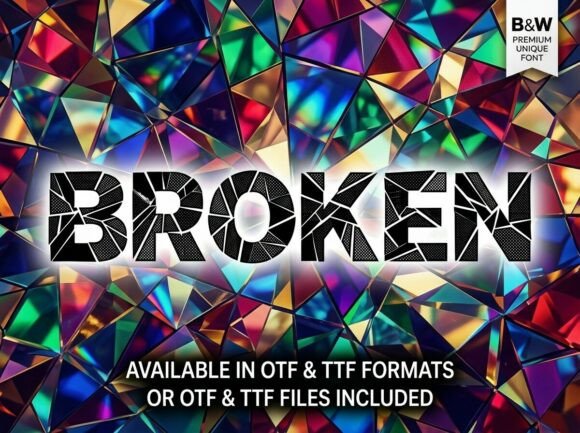
The Shattered Edge of Typography: Unleashing the Power of Broken Font
I’ll never forget the design project that pushed me to the edge – literally. I was working on a bold, avant-garde poster for an alternative rock band, and I needed a font that would shatter the boundaries of traditional typography. That’s when I stumbled upon Broken, a premium display font that would change the game. In this article, I’ll share my journey with Broken, its incredible features, and how to harness its power on various design platforms.
A Design Moment of Truth
I was struggling to find the perfect font for my project, and my client was getting restless. They wanted something bold, edgy, and attention-grabbing. I scoured the internet, but nothing seemed quite right. That’s when I discovered Broken – a magnificent shard-based design that seemed to explode with energy. I was hooked, and my design woes were about to disappear.
An Honest Review of Broken Font
• 💥 Unparalleled visual impact: Broken’s intricate mosaic design creates a dramatic, multi-dimensional depth that’s hard to ignore.
• ✅ High-contrast aesthetic: The combination of solid monochrome blocks, sharp negative-space cracks, and stippling halftone texture makes for a truly unique look.
• 🎨 Versatility: Broken is perfect for alternative rock album headers, psychological thriller book titles, avant-garde streetwear logos, and high-energy gaming tournament graphics.
• 💪 Professional structure: Despite its shattered edge, Broken delivers a sense of structure and sophistication to your designs.
While Broken is an incredible font, it’s not without its quirks. For instance, some users might find the font’s intricacy challenging to work with at smaller sizes. Additionally, the font’s unique design might not be suitable for body text or more formal applications.
• 🤔 Limited use cases: Broken is a display font, so it’s best used sparingly for headlines or titles.
• ⚠️ Potential legibility issues: At smaller sizes or in certain colors, some characters might be harder to read.
The Backstory of Broken Font
Broken was designed by a team of typographers who sought to push the limits of traditional typography. Inspired by the raw energy of alternative rock and the avant-garde art movement, they crafted a font that would shatter expectations. The result is Broken – a premium display font that’s equal parts beautiful and bold.
Font Name Broken Font
Author clipartguru
Q: What inspired the design of Broken Font?
A: Broken was inspired by the raw energy of alternative rock and the avant-garde art movement.
Q: Is Broken Font suitable for body text?
A: No, Broken is a display font best used for headlines or titles. Its intricacy and design might not be suitable for body text.